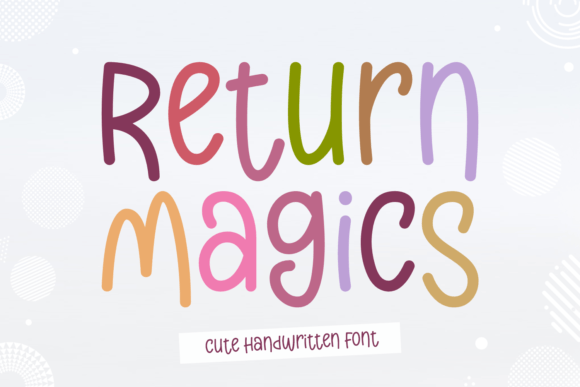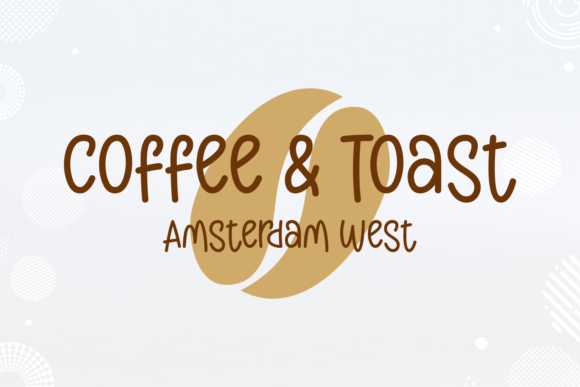
Return Magics Font
Return Magics is a charming and whimsical handwritten font that radiates warmth and personality. With its playful strokes and irregular letterforms, Return Magics captures the essence of spontaneity and creativity. Perfect for greeting cards, invitations, and children’s literature, this font adds a touch of magic to any design project.